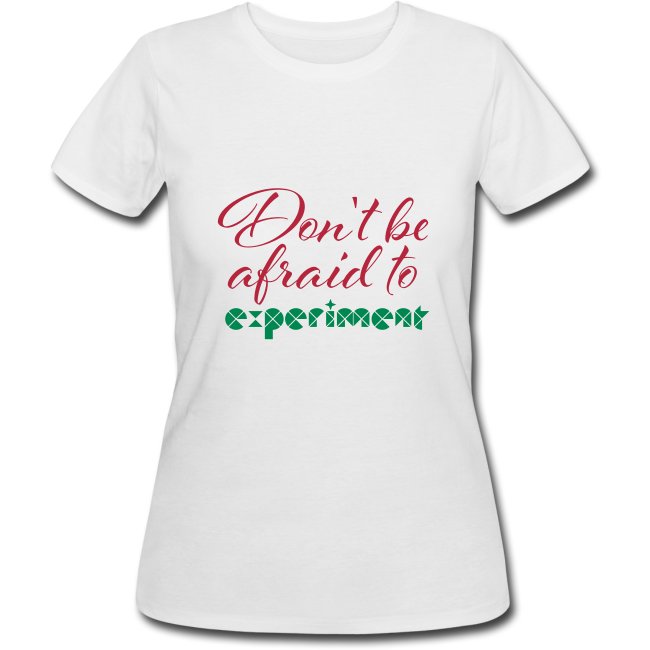
• Happy 10th Anniversary! A highly conceptual and modular work with integration of "X", a technique that is yet to be developed...
Do you think you can have the right side of the X on lc i, j, and l...
Thanks, good suggestions. UC is for alternates so I changed them there.
Aaahhh, X marks the spot --- or the whole letter ;) Interesting idea to use the x to open the glyphs in a different way; that's specially well thought out for glyphs with an eye or counter. So simple and so effective. 10/10 for the cleverness of X :D
It's so cool. It took me some time to figure out how you did it. Am I correct?
It should be right :) But I used 2x2 filters to achieve narrower gaps.
@Thelamic HOW did you do the rotated curved bricks????
I wonder if there are plans on numerals yet???
Thanks! Most of my works here are experimental. I use fontstruct as one would use pen and paper - to draft an idea, and also to see what shapes are possible with the given software features. So I apologize if one finds them incomplete ;) I've added fitting numerals (more or less).
This took me an even longer time to figure out than Thalamic, but it is really clever. Excellent execution throughout. This technique opens up a lot of new possibilities. Thanks for sharing.
Glad that this is drawing attention, though I did use the method almost a year ago on AT Bevelour ;)
I don't get it... How? Teach me the ways of your circle, master!